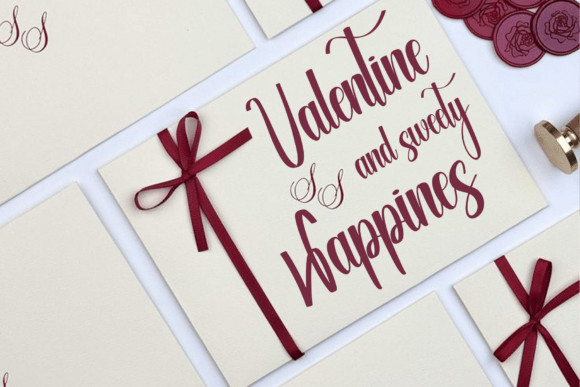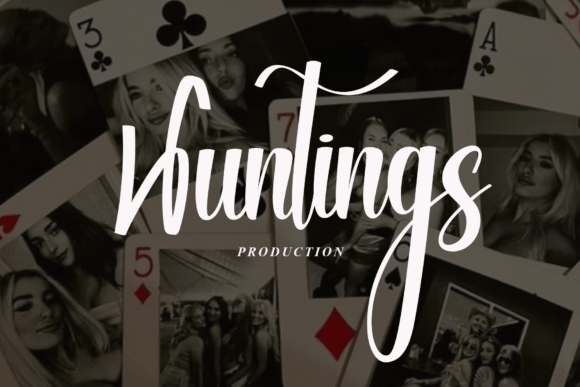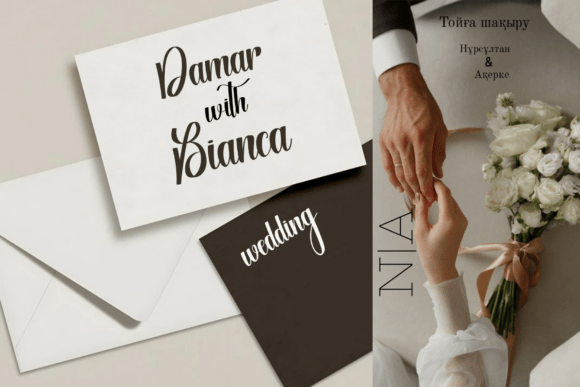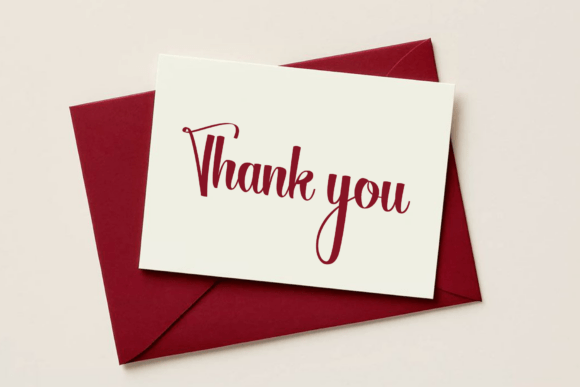
Introducing Birthdays Font: The Perfect Blend of Professionalism and Romance
Are you a designer or crafter looking for a font that exudes elegance, sophistication, and a touch of romance? Look no further than Birthdays Font, a beautiful handwritten script font that is sure to elevate your designs to the next level. In this article, we’ll dive into the features and benefits of Birthdays Font, and explore how it can be used to create stunning visual content for a variety of applications.
A Modern Handwritten Script Font
Birthdays Font is a modern handwritten script font that combines the best of both worlds: professionalism and romance. Its flowing lines, heart-shaped swashes, and smooth curves make it the perfect choice for designers who want to add a touch of elegance and sophistication to their designs. Whether you’re creating logos, social posts, or stationery, Birthdays Font is sure to make a lasting impression.
Key Features of Birthdays Font
- Flowing Lines: Birthdays Font features flowing lines that give it a sense of movement and fluidity. This makes it perfect for creating dynamic and engaging visual content.
- Heart-Shaped Swashes: The font’s heart-shaped swashes add a touch of romance and whimsy, making it ideal for wedding invitations, Valentine’s Day cards, and other romantic designs.
- Smooth Curves: The smooth curves of Birthdays Font give it a sense of elegance and sophistication, making it perfect for business branding, logos, and other professional applications.
Birthdays Font is a versatile font that can be used for a wide range of applications, including:
- Business Branding: Use Birthdays Font to create elegant and sophisticated logos, business cards, and letterheads that will help you stand out from the competition.
- Wedding Invitations: The font’s romantic and whimsical feel makes it perfect for wedding invitations, save-the-date cards, and other wedding stationery.
- Social Media: Use Birthdays Font to create engaging and eye-catching social media posts that will help you connect with your audience.
- Stationery: The font’s elegant and refined feel makes it perfect for creating beautiful stationery, including notebooks, journals, and greeting cards.
Why Choose Birthdays Font?
So why choose Birthdays Font over other fonts? Here are just a few reasons:
- Unique and Elegant: Birthdays Font is a unique and elegant font that will help you stand out from the competition.
- Versatile: The font’s versatility makes it perfect for a wide range of applications, from business branding to wedding invitations.
- Easy to Read: Despite its elegant and refined feel, Birthdays Font is easy to read and understand, making it perfect for body text and other long-form content.
Tips for Using Birthdays Font
Here are a few tips for using Birthdays Font in your designs:
- Use it Sparingly: While Birthdays Font is elegant and refined, it can be overwhelming if used too much. Use it sparingly to add a touch of elegance to your designs.
- Pair it with Other Fonts: Birthdays Font pairs well with other fonts, including sans-serif fonts and serif fonts. Experiment with different pairings to find the one that works best for your design.
- Experiment with Colors: Birthdays Font looks great in a variety of colors, from bold and bright to soft and pastel. Experiment with different colors to find the one that works best for your design.
In conclusion, Birthdays Font is a beautiful and elegant handwritten script font that is perfect for designers and crafters who want to add a touch of romance and sophistication to their designs. Its flowing lines, heart-shaped swashes, and smooth curves make it ideal for a wide range of applications, from business branding to wedding invitations. With its versatility, elegance, and ease of use, Birthdays Font is sure to become a favorite in your font collection.